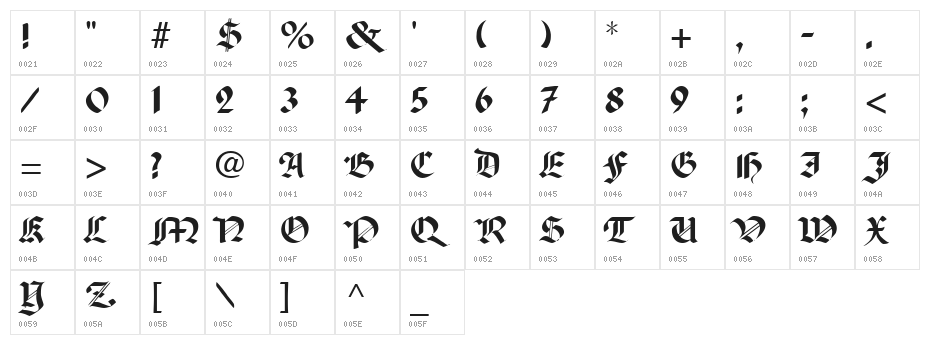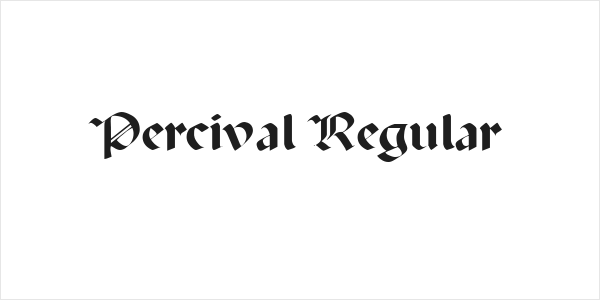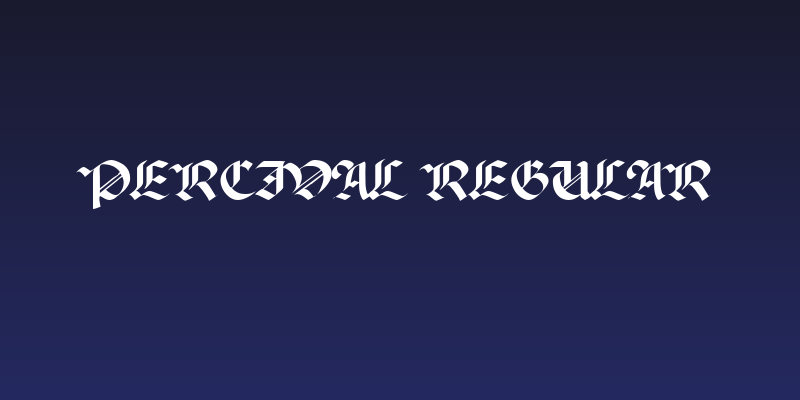
Percival Regular Font
Percival Regular Description
This font embodies the classic elegance of traditional Blackletter styles, characterized by its intricate and ornate letterforms. The uppercase letters exhibit sharp, angular strokes with pronounced serifs, while the lowercase letters maintain a consistent flow with a slightly more rounded appearance. The numerals are bold and commanding, matching the overall aesthetic of the typeface. Special characters are designed with the same attention to detail, ensuring a cohesive look across all glyphs. This font's historical roots are evident in its design, making it suitable for projects that require a touch of vintage sophistication.
| Use Case | Logos, Certificates, Branding |
| Proposed Projects | Ideal for historical documents, certificates, branding for luxury products, or any design needing a vintage touch. |